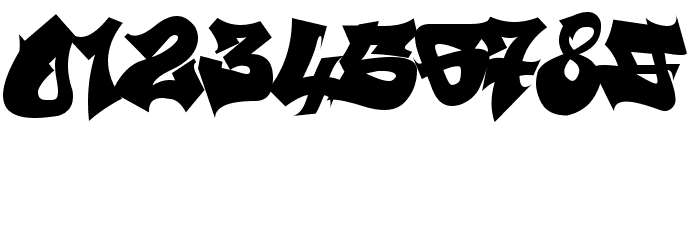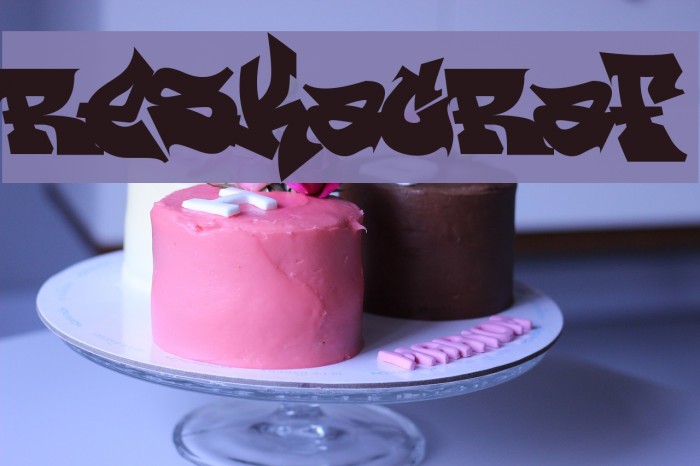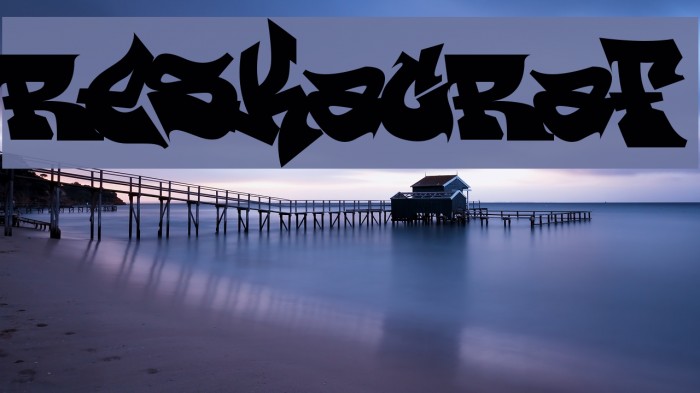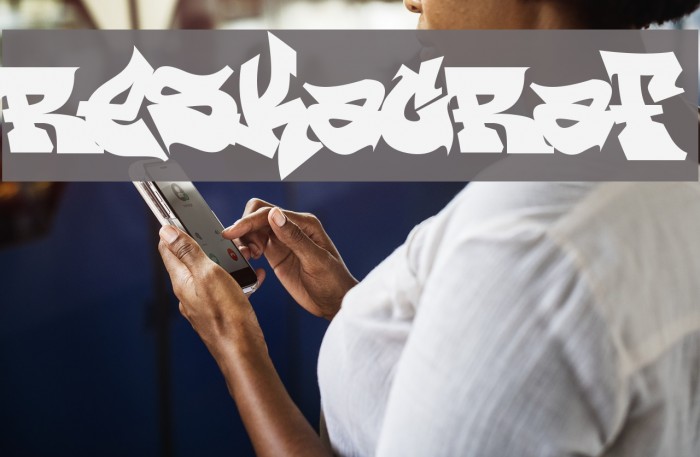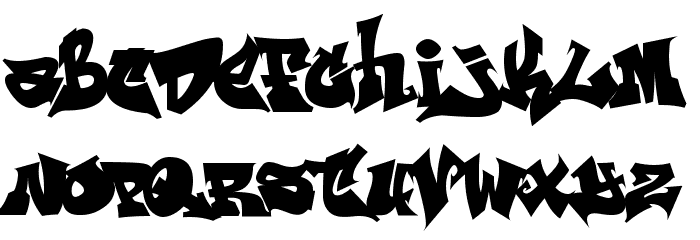
ReskaGraf Font
ReskaGraf Description
This font features a bold, graffiti-inspired style with sharp, angular lines and dynamic shapes. The characters are heavily stylized, creating a sense of movement and energy. The uppercase and lowercase letters share a consistent aesthetic, with exaggerated curves and pointed edges. The numbers and special characters maintain this theme, offering a cohesive look across all elements. The font's design is reminiscent of urban street art, making it ideal for projects that require a bold and edgy appearance. Its unique style captures attention and conveys a sense of rebellion and creativity.
| Overall Style | Modern, Urban |
| Proposed Projects | Ideal for street art projects, urban-themed designs, music album covers, and edgy branding. |